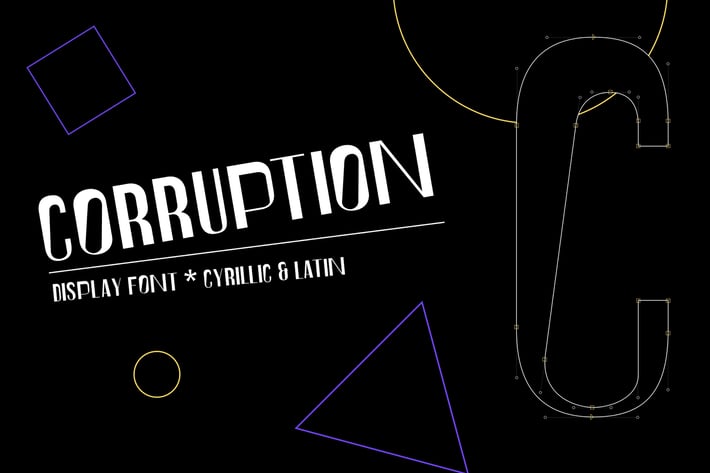
Corruption font
Corruption font is a tall condensed font that perfectly match articles, posters, branding, advertising, web or any other promo material.
Include Uppercase Latin & Cyrillic alphabet.